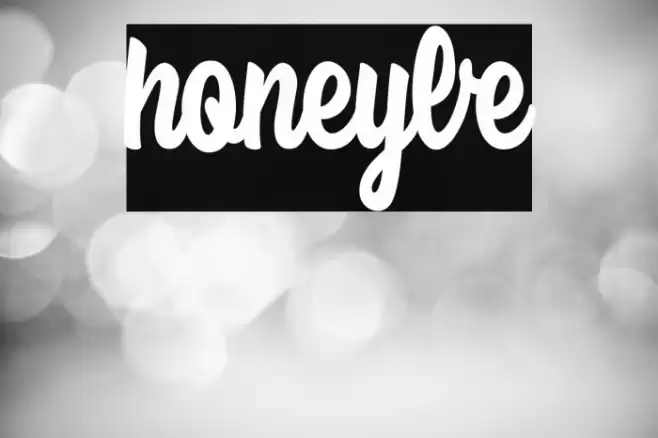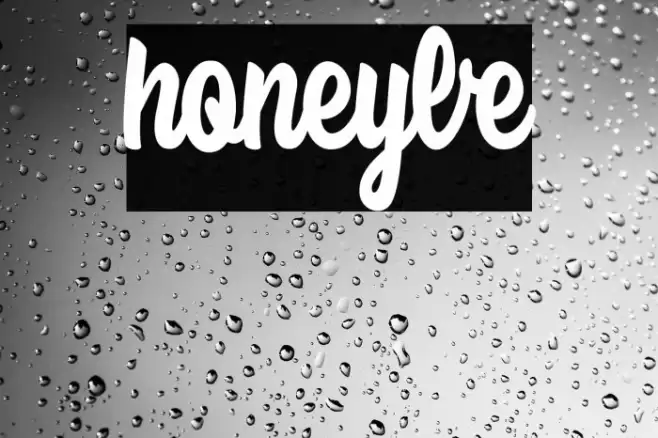
honeybe Font
honeybe Description
This font features a bold and flowing script style, characterized by its smooth, connected letters that mimic the fluidity of handwriting. The uppercase letters are slightly more structured, maintaining a consistent height, while the lowercase letters exhibit a more playful and dynamic form. The strokes are thick and rounded, providing a sense of warmth and approachability. The font maintains a consistent weight throughout, with a slight slant that adds to its casual and friendly appearance. The character spacing is tight, enhancing the connected, cursive look. This font is ideal for projects that require a personal touch, such as invitations, greeting cards, or branding materials that aim to convey a sense of elegance and charm.
A bold, flowing script font with smooth, connected letters and a casual elegance from Uncategorized fonts.
- Character Spacing: Tight